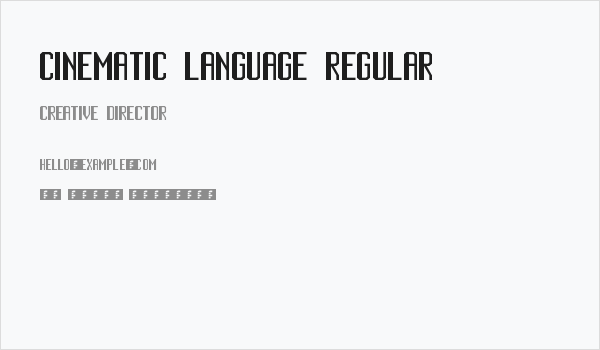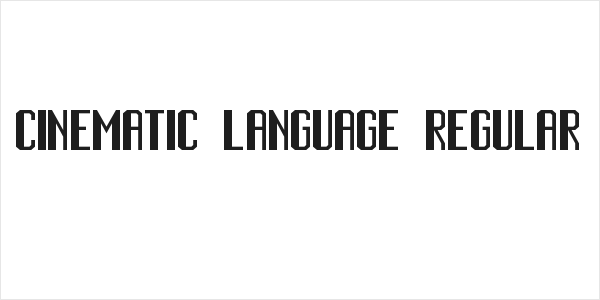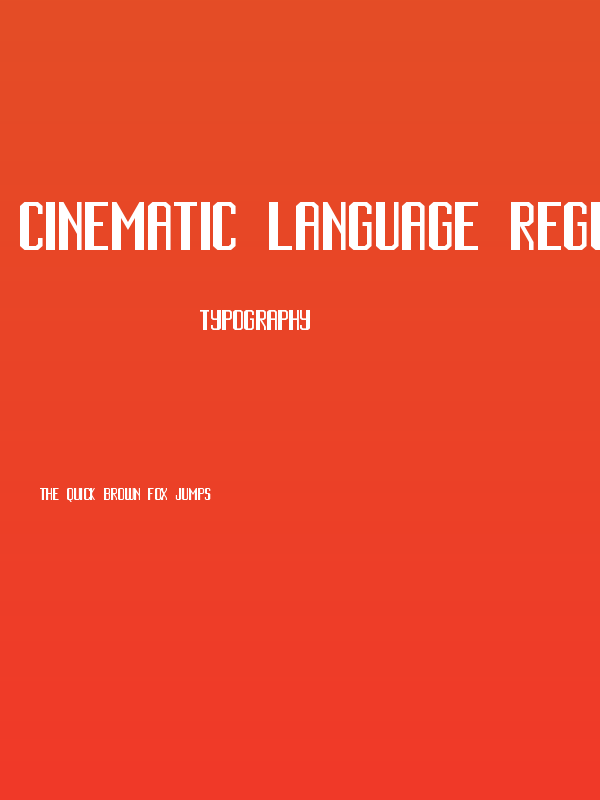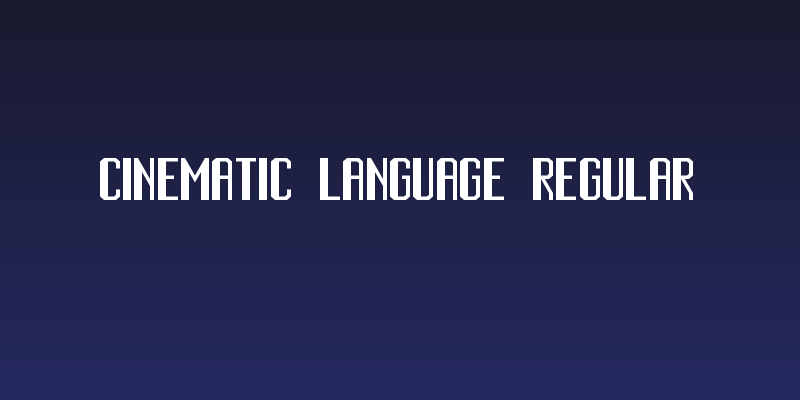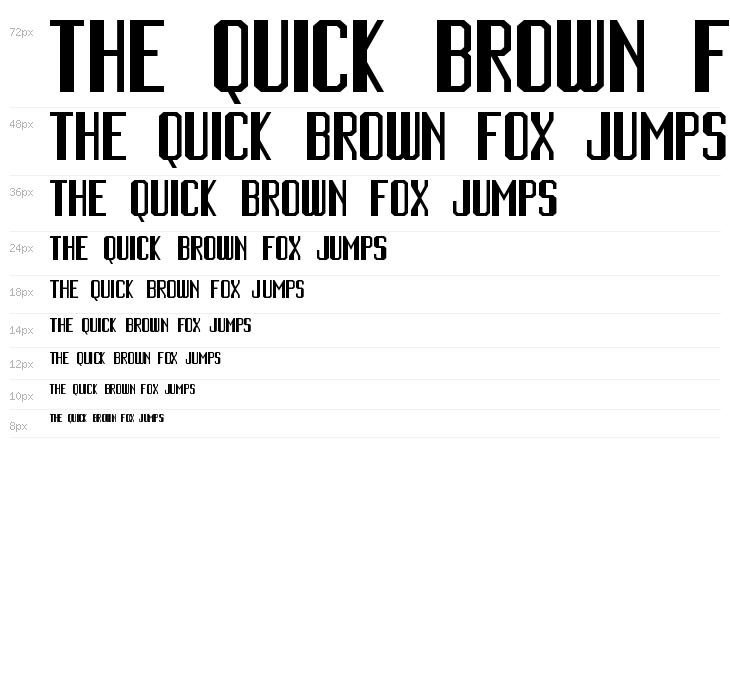
Cinematic Language Regular Font
Cinematic Language Regular Description
This font features a bold, geometric design with a strong presence. The characters are tall and narrow, with sharp angles and a modern aesthetic. The uppercase letters are particularly striking, with a uniform height and consistent stroke width. The font's design is reminiscent of classic cinema marquees, giving it a nostalgic yet contemporary feel. The absence of lowercase letters and numerals suggests a focus on impactful, headline-style text. The special characters are integrated seamlessly, maintaining the overall bold and angular style. This font is ideal for projects that require a strong visual impact and a modern, cinematic flair.
| Proposed Projects | Ideal for movie posters, event signage, branding, and any project requiring a strong visual impact. |